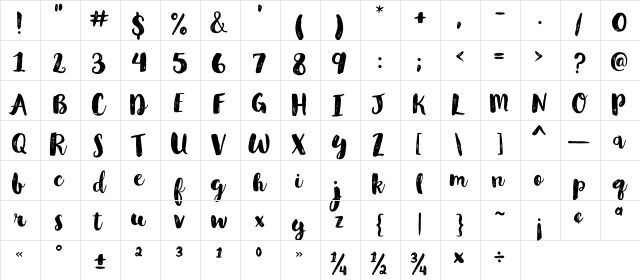
Glamour Brush Regular
| Foundry | Cultivated Mind |
| Designer | Cindy Kinash |
Design Context for Glamour Brush Typeface
Glamour Brush flows with the natural rhythm of handwritten lettering, making it ideal for designs that call for warmth and personal expression.
Font Pairing: Combine Glamour Brush with a simple geometric sans for maximum contrast — the tension between flowing curves and clean structure is a classic typographic pairing.
Pro Tip: Pair Glamour Brush with a clean sans-serif for supporting text. The contrast between fluid script and geometric structure creates an elegant typographic hierarchy.